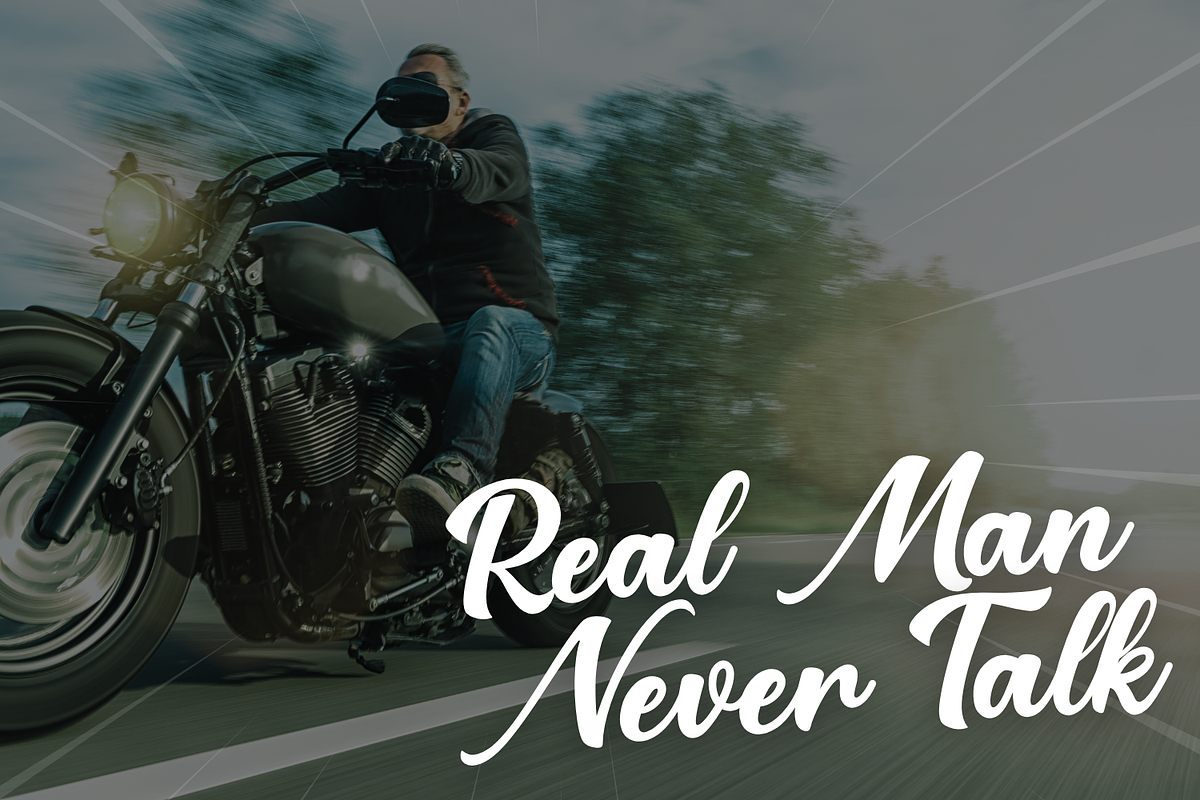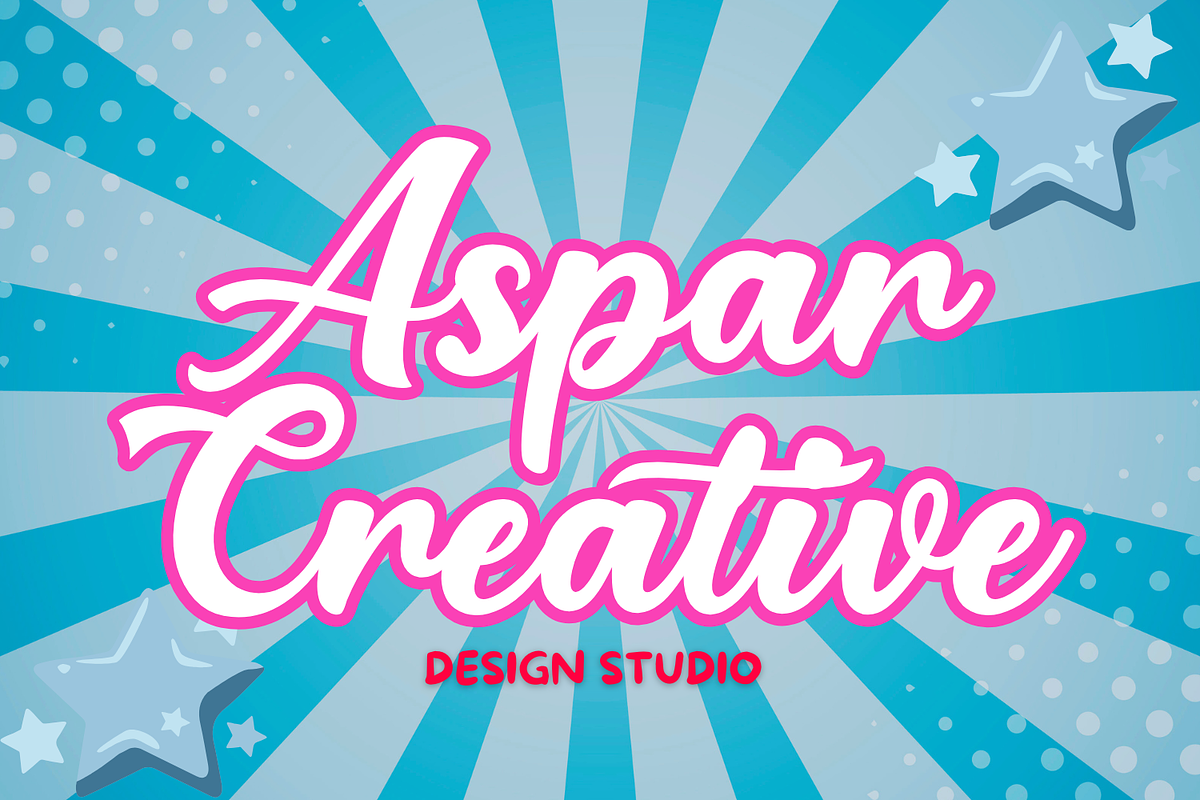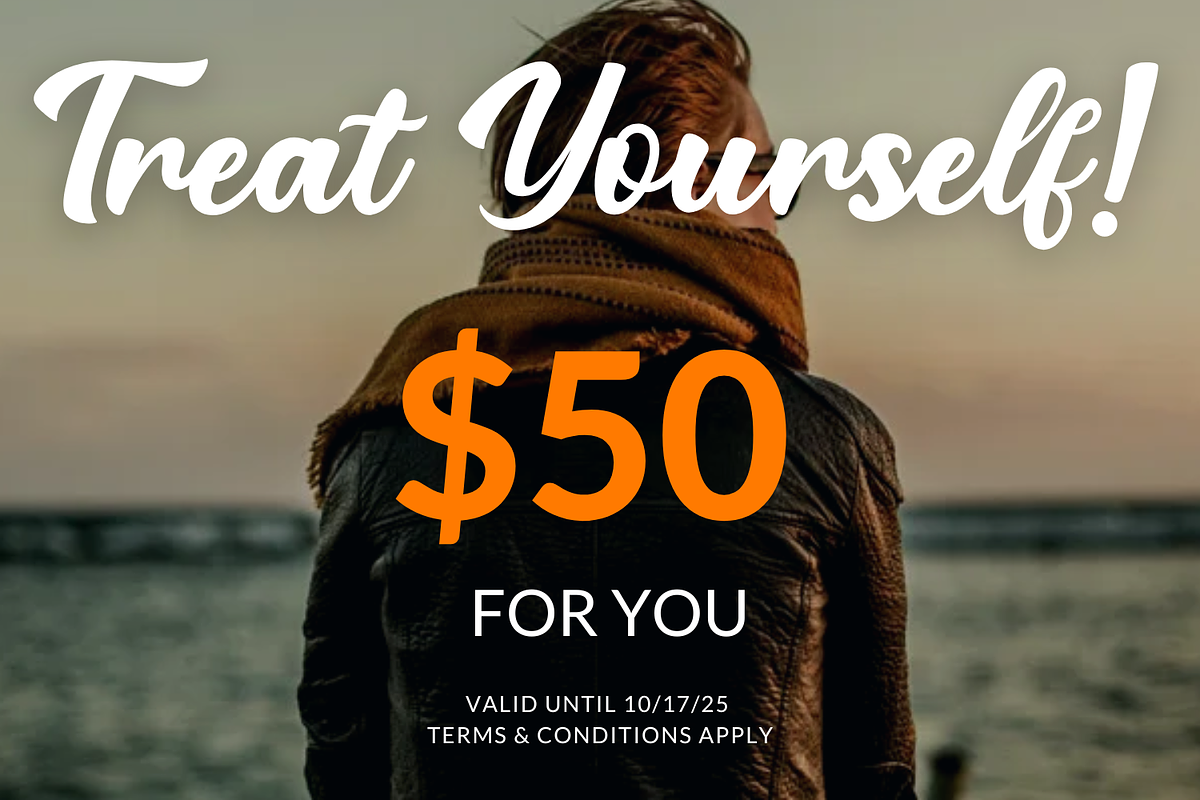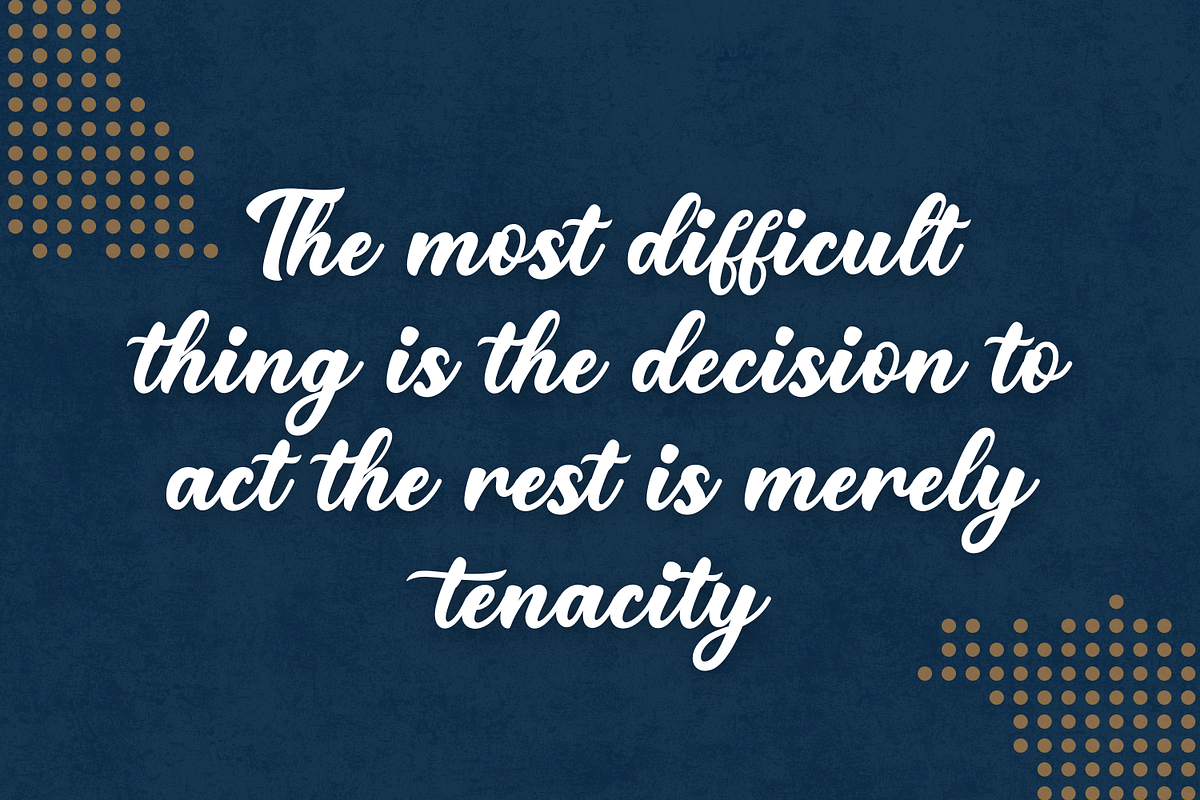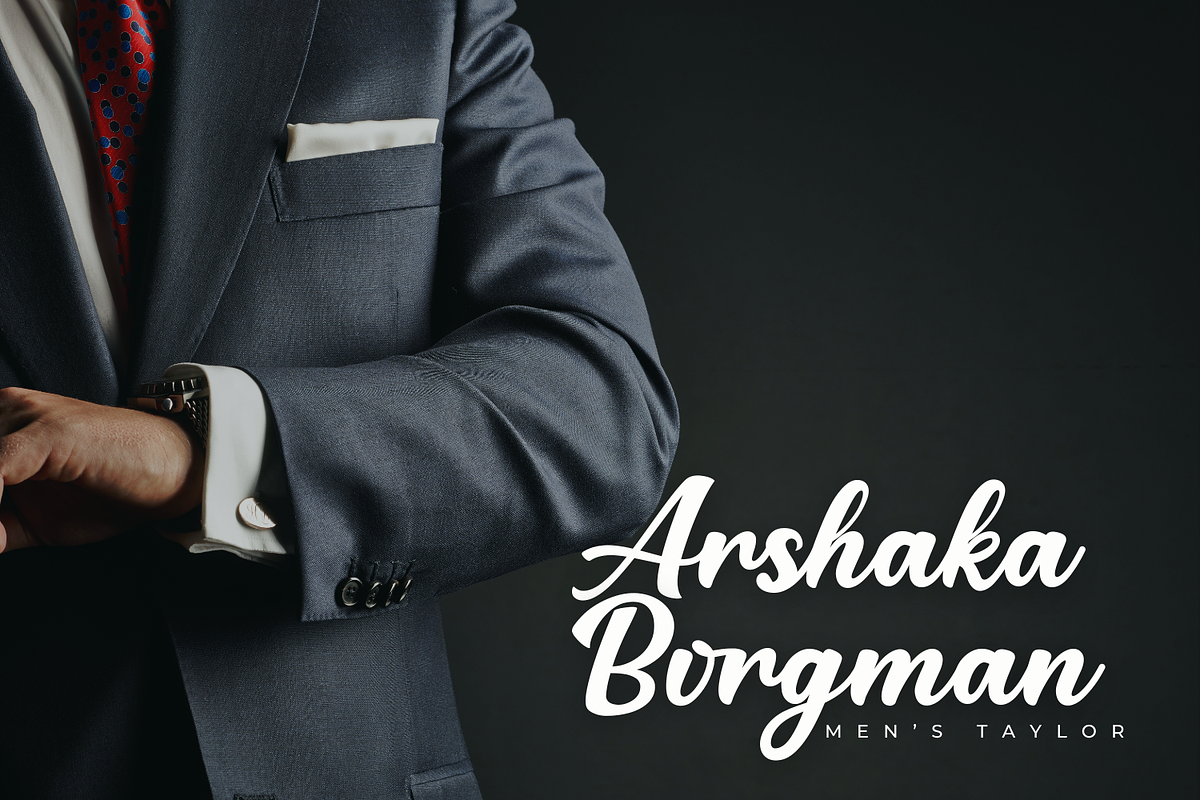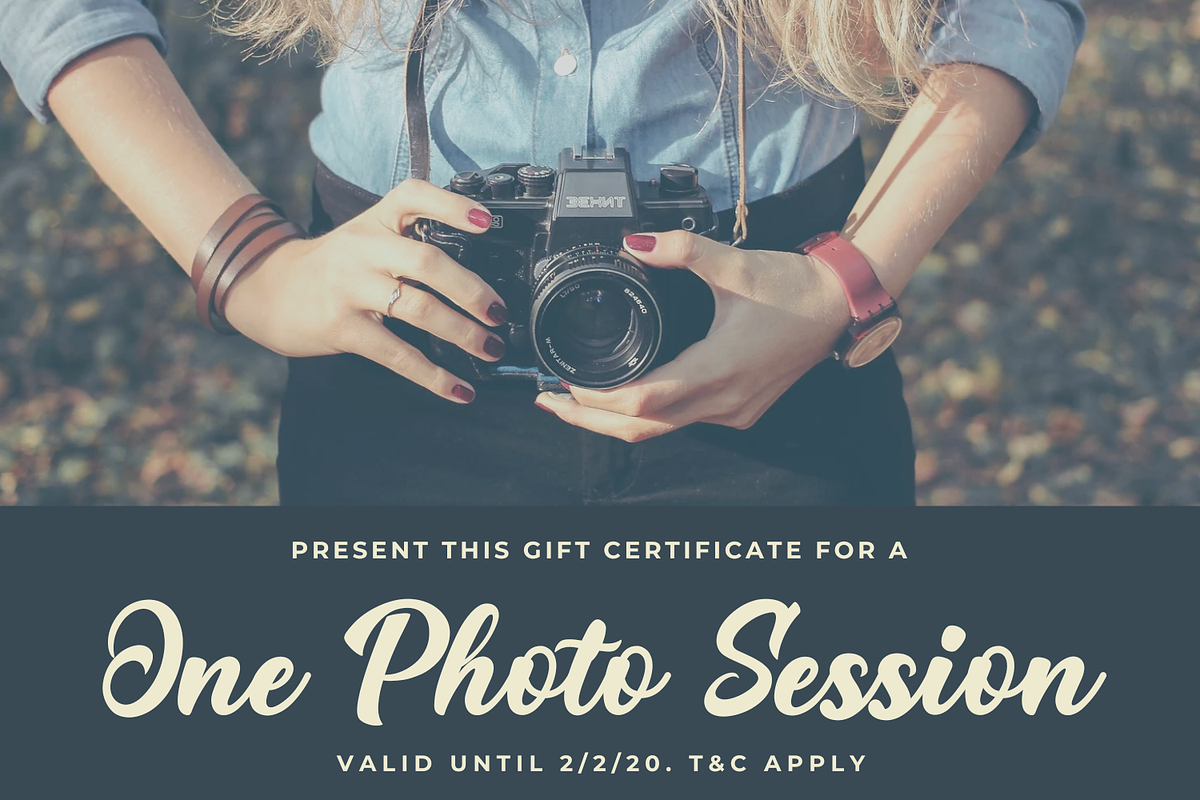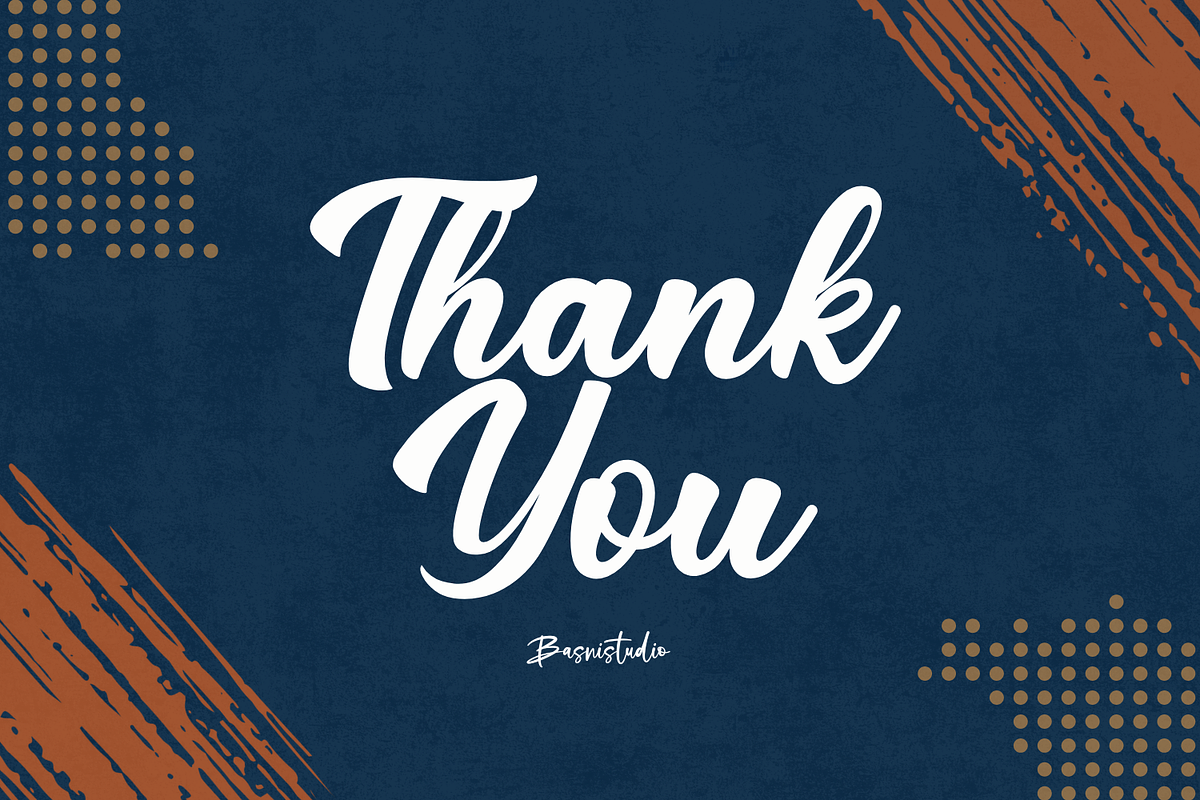
Monstar Bold Script Font
Introducing Monstar Bold Script Font
Monstar Bold Script Font, made by Naturaly Bold Handwriting Script With Authentic Style.
This Font is perfect for an magazine, clothes, quotes, and so much more. This font is PUA encoded, which means you can access all of the glyphs.